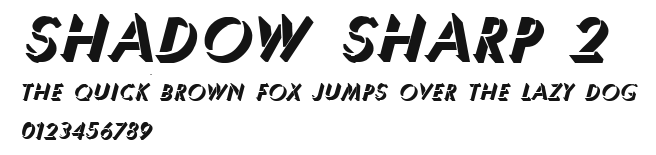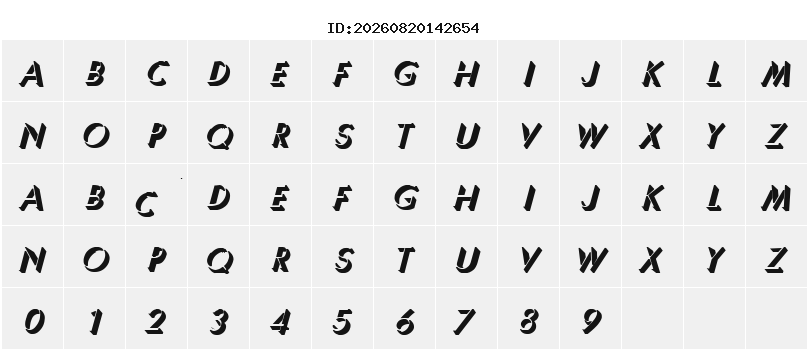
Shadow Sharp 2 Preview
• Font Name: Shadow Sharp 2
• Font ID: Umbra-Thin Bold Italic:
• Full Font Name: Shadow Sharp 2
• Version: 1.0 Wed May 03 12:43:05 1995
• PostScript Name: Umbra-Thin-BoldItalic
• Character Count: 397
About Shadow Sharp 2.ttf
Shadow Sharp 2.ttf is a modern, elegant sans-serif font designed for ultimate readability and visual harmony. Perfect for branding, headlines, web design, and print materials.